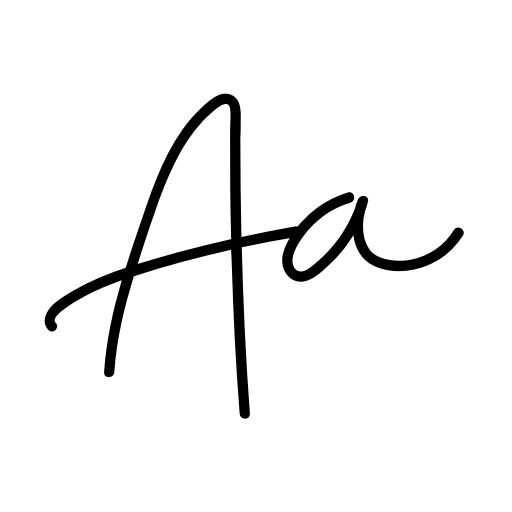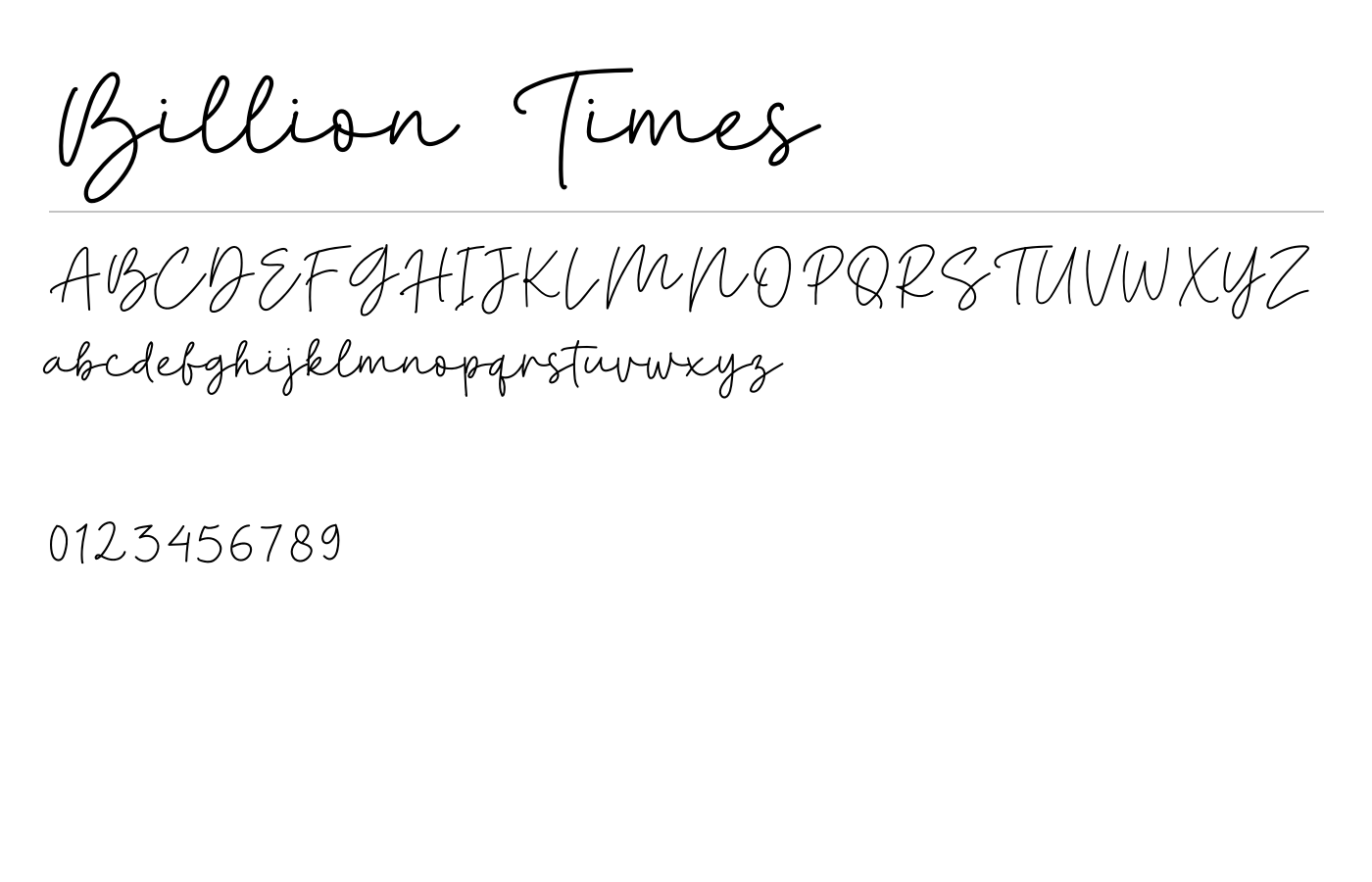
Billion Times is a delicate, handwritten script font characterized by its slender, light strokes and natural, flowing lines. Its airy and elegant style makes it perfect for creative branding, invitations, and personal projects where a soft, approachable, and stylish touch is desired. This font works beautifully in designs that aim to convey warmth and personality while maintaining a clean and modern look.
Billion Times Font
About Billion Times Font